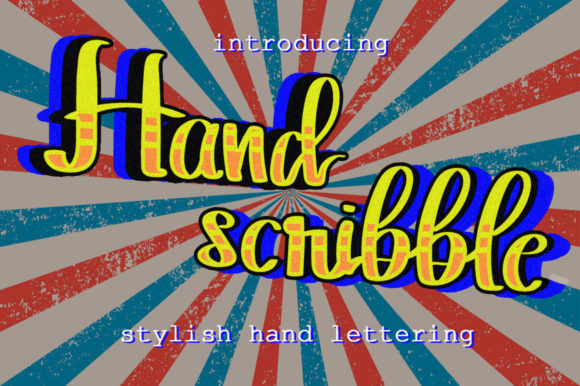
Dive into the enchanting world of Hand Scribble Font, where elegance meets creativity! This captivating script font evokes the charm of timeless handwritten notes, bringing a touch of nostalgia and authenticity to your digital creations.
Picture the allure of an old-world letter, its ink flowing effortlessly across the page. Hand Scribble Font embodies this essence, inviting you to weave your own tales of love, laughter, and adventure. Its vintage-inspired curves and delicate flourishes add a touch of whimsy and sophistication to any design.
Whether you're crafting heartfelt wedding invitations or creating stunning quotes that inspire the soul, Hand Scribble Font is your perfect companion. Its versatility extends to logos, business cards, and any project where a handwritten touch is desired.
Imagine your brand adorned with the timeless beauty of Hand Scribble Font. It will elevate your message, capturing the attention of your audience with its undeniable charm. Every stroke, every curve, every letterform is meticulously crafted to convey a sense of warmth and authenticity.
Unleash your creativity with Hand Scribble Font and let your imagination soar. Its unique character will add a touch of magic to your designs, making them stand out from the crowd. Embrace the art of handwritten elegance and create works that resonate with your audience on a deeper level.